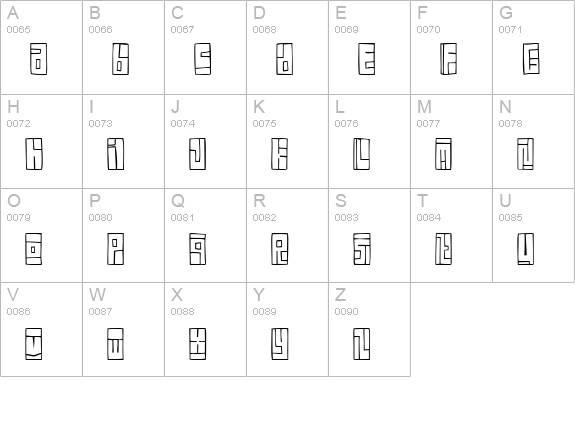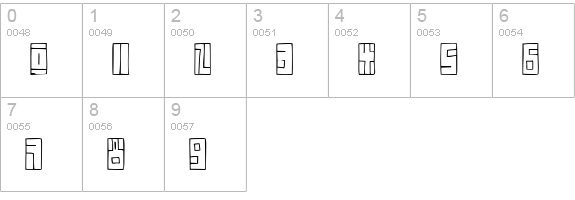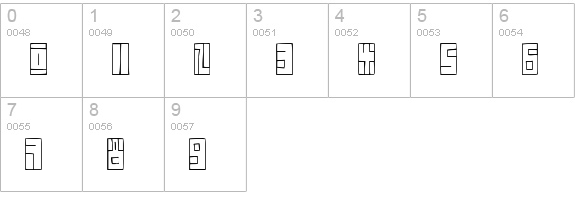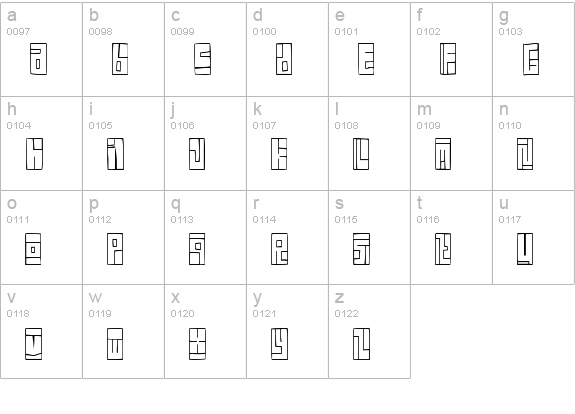
Introducing Box Font, a modern and stylish typeface that will elevate your design projects to a whole new level. This unique font features clean lines and a bold, boxy design that is sure to make a statement. With its sleek and contemporary look, Box Font is perfect for logos, branding, posters, and more. Best of all, Box Font is available for free download at FontsMarket.com. So you can easily add this eye-catching font to your collection without breaking the bank. Don't miss out on the opportunity to enhance your designs with the stylish and versatile Box Font. Download it today and start creating stunning visuals that will leave a lasting impression.